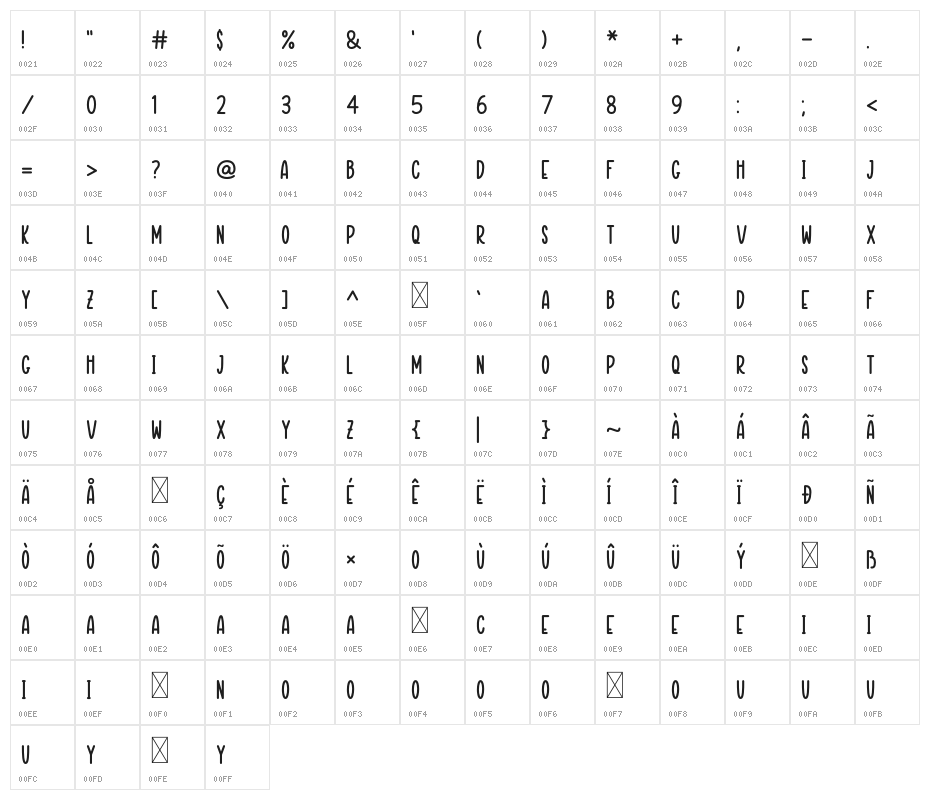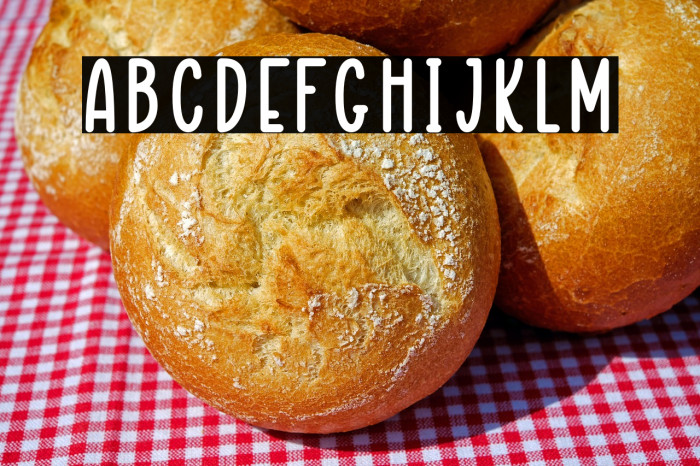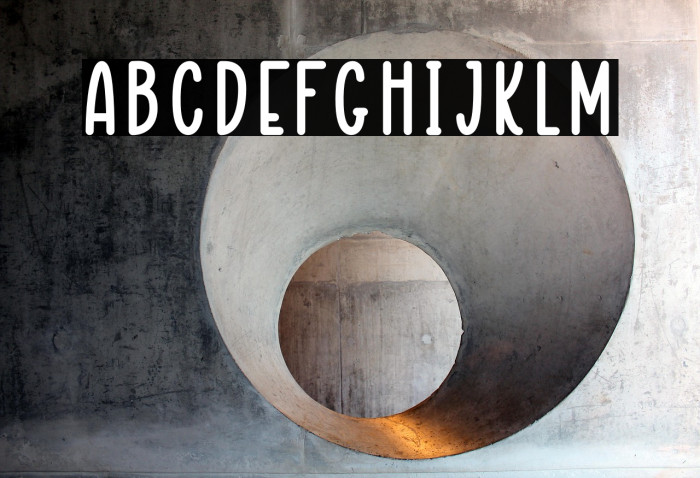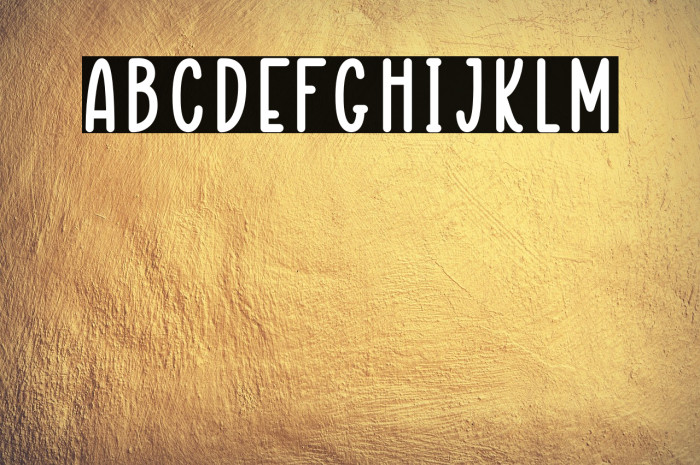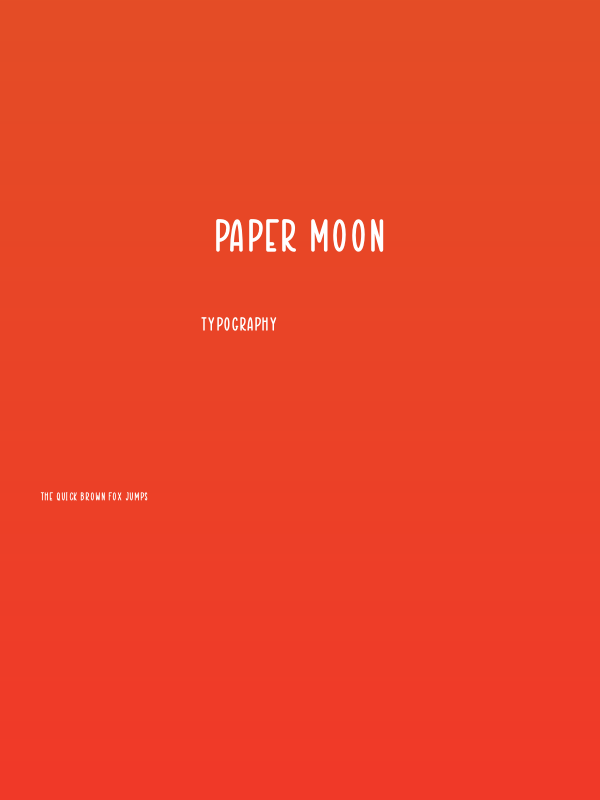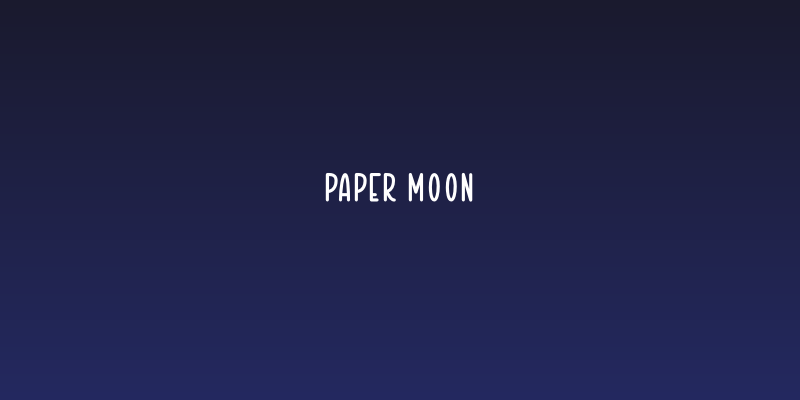
PAPER MOON Font
PAPER MOON Description
This font features a playful and rounded style, characterized by its smooth curves and slightly elongated letterforms. The uppercase and lowercase letters maintain a consistent width, creating a harmonious and balanced appearance. The numerals and special characters follow the same design principles, ensuring uniformity across all glyphs. The font's friendly and approachable aesthetic makes it suitable for a variety of creative projects. Its simplicity and clarity enhance readability, while the unique character shapes add a touch of personality.
| Proposed Projects | Ideal for children's books, playful branding, greeting cards, and casual invitations. |